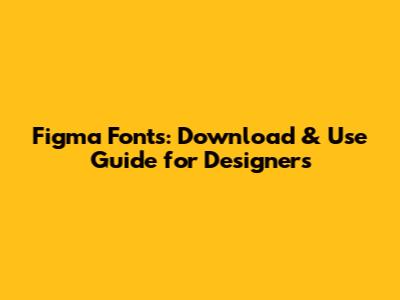
- Headings: Use larger, bolder fonts for headings to make them stand out. Choose a font that's attention-grabbing but still readable.
- Subheadings: Use slightly smaller fonts for subheadings, and consider using a different font style or weight to differentiate them from the main headings.
- Body Text: Use a clear, readable font for the body text. Avoid overly decorative or script fonts, as they can be difficult to read in large blocks of text. Aim for a font size that's comfortable to read on different screen sizes.
- Contrast: Choose fonts that contrast each other in terms of style, weight, or size. For example, you might pair a bold sans-serif font for headings with a lighter serif font for body text.
- Complementary Fonts: Look for fonts that complement each other, sharing similar characteristics or design elements. This can create a cohesive and balanced look.
- Limit the Number of Fonts: As a general rule, it's best to limit the number of fonts you use in a design to two or three. Using too many fonts can create a cluttered and confusing look.
- Create a Style Guide: Develop a style guide that outlines the fonts, colors, and other design elements you'll be using in your project. This will help ensure consistency across all your designs.
- Use Styles in Figma: Figma's Styles feature allows you to save and reuse font styles, color styles, and other design elements. This makes it easy to maintain consistency throughout your design.
- Follow a Grid System: Using a grid system can help you align your design elements and create a consistent layout.
- Choose Readable Fonts: Select fonts that are clear and easy to read, even at small sizes. Avoid overly decorative or script fonts, as they can be difficult to read.
- Use Sufficient Contrast: Ensure that there's sufficient contrast between the text and the background. This is especially important for people with visual impairments.